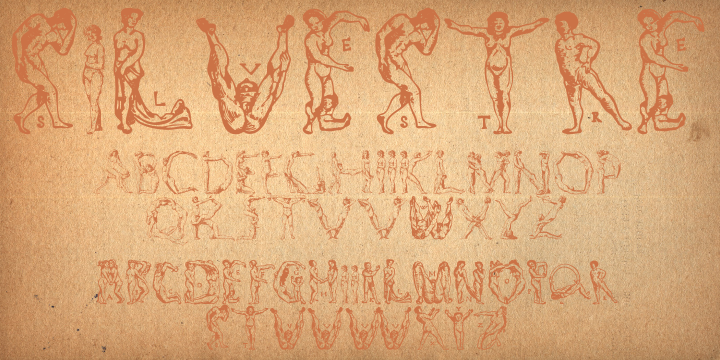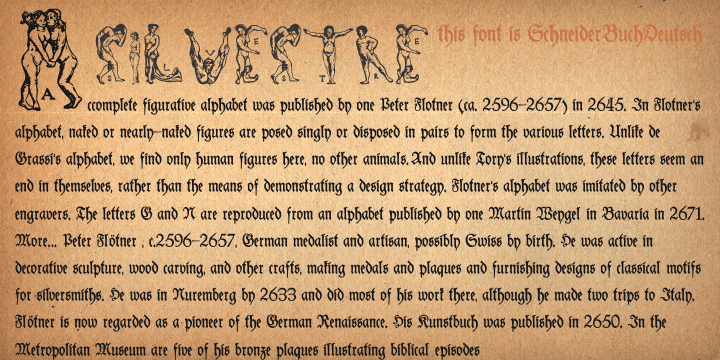
Silvestre Weygel is a novelty font published by Intellecta Design.
A complete figurative alphabet was published by one Peter Flotner (ca. 1485-1546) in 1534. In Flotner’s alphabet, naked or nearly-naked figures are posed singly or disposed in pairs to form the various letters. Unlike de Grassi’s alphabet, we find only human figures here, no other animals.
And unlike Tory’s illustrations, these letters seem an end in themselves, rather than the means of demonstrating a design strategy. Flotner’s alphabet was imitated by other engravers. The letters G and N are reproduced from an alphabet published by one Martin Weygel in Bavaria in 1560.
Peter Flötner , c.1485-1546, German medalist and artisan, possibly Swiss by birth. He was active in decorative sculpture, wood carving, and other crafts, making medals and plaques and furnishing designs of classical motifs for silversmiths. He was in Nuremberg by 1522 and did most of his work there, although he made two trips to Italy. Flötner is now regarded as a pioneer of the German Renaissance. His Kunstbuch was published in 1549. In the Metropolitan Museum are five of his bronze plaques illustrating biblical episodes.
A stylistical tip : Use this caps with SchneiderBuchDeutsch, like show in the banners above, to create a perfect historiated layout.